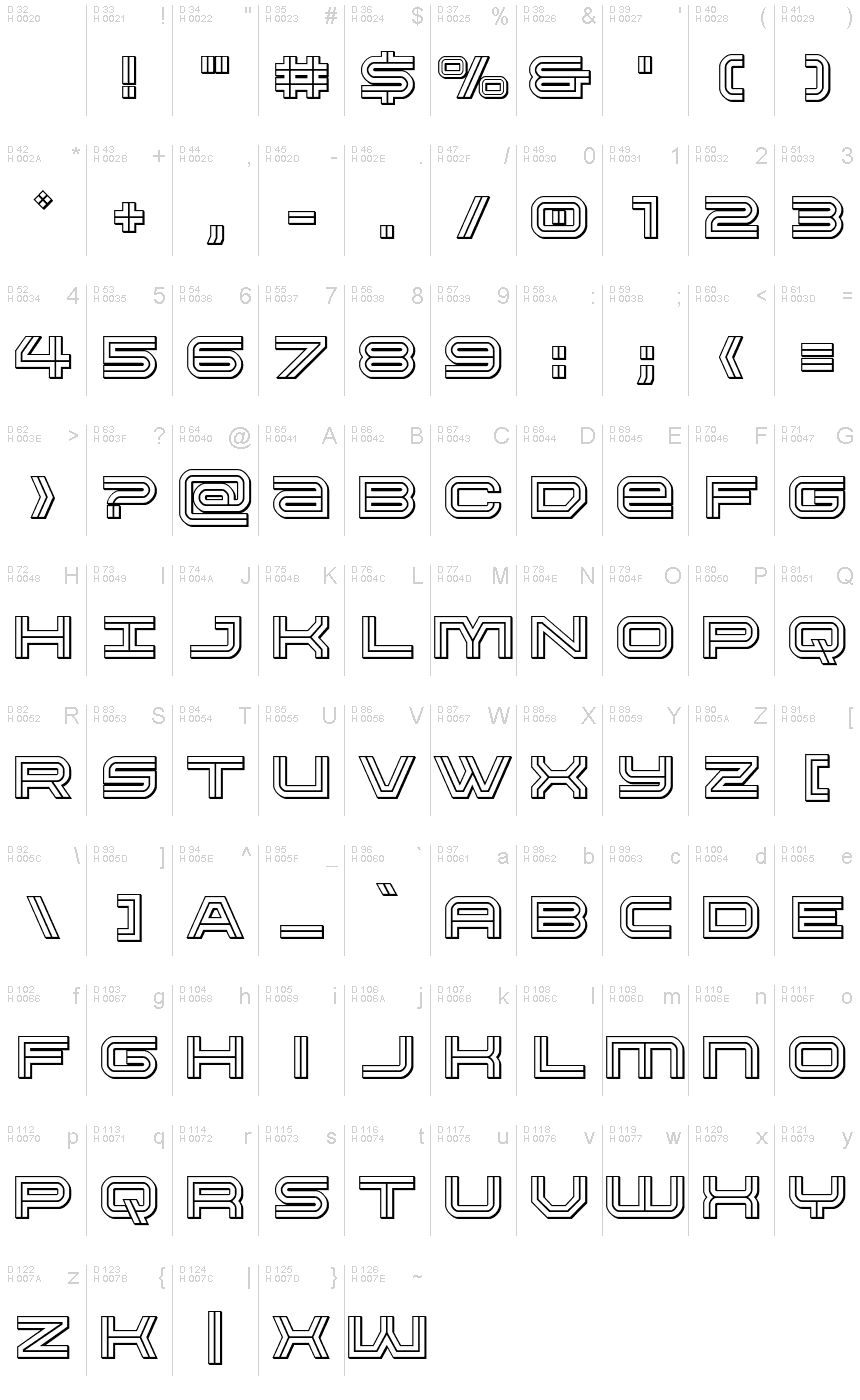
Gran Torino 3D
Introducing Gran Torino 3D, a bold, wide display font from the Gran Torino family designed by Daniel Zadorozny. Perfect for tech-oriented projects such as science fiction movie posters or futuristic logos.